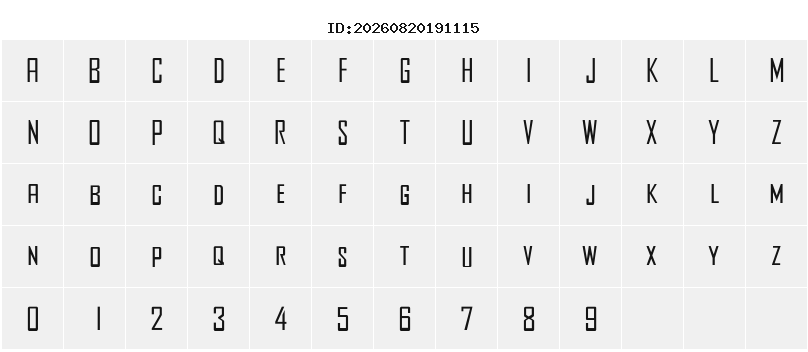
• Font Name: Seldom
• Full Font Name: Seldom
About Seldom.ttf
Seldom.ttf is a modern, elegant sans-serif font designed for ultimate readability and visual harmony. Perfect for branding, headlines, web design, and print materials.